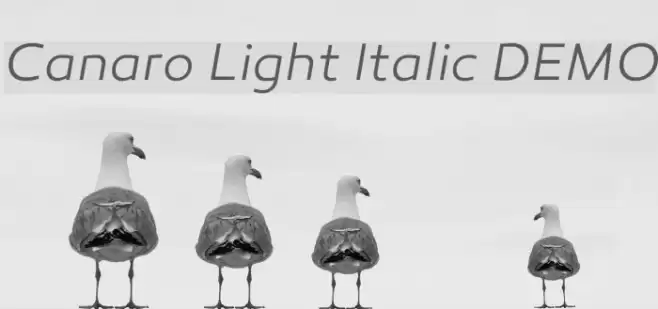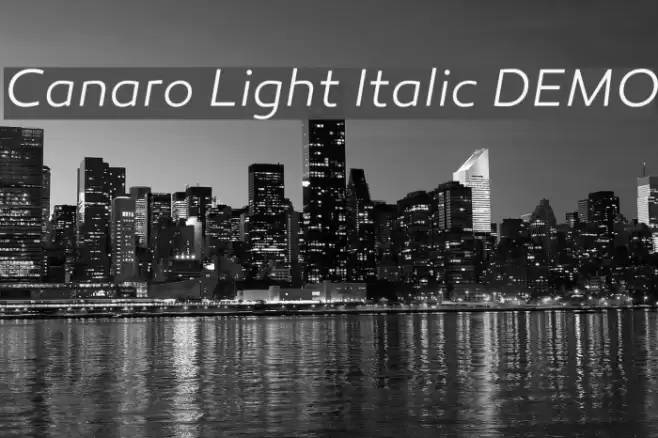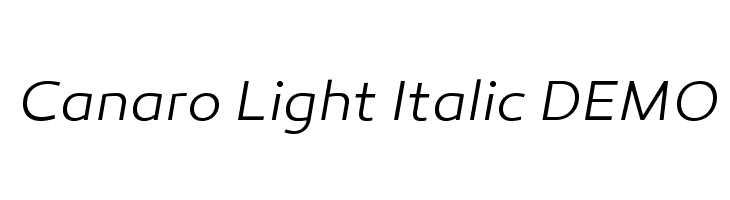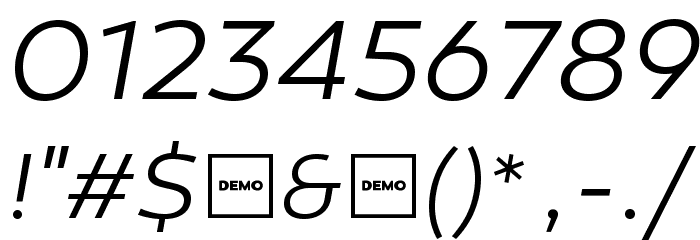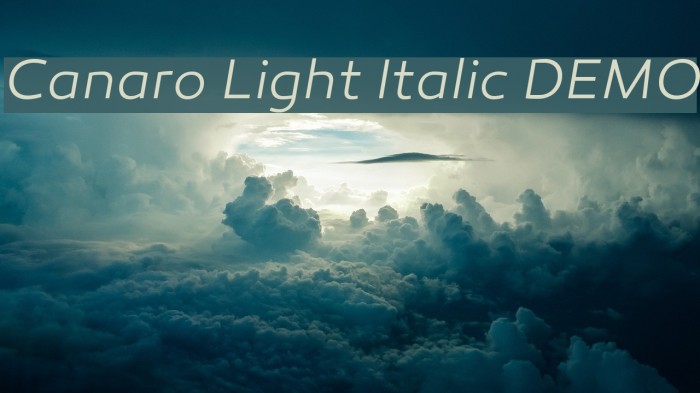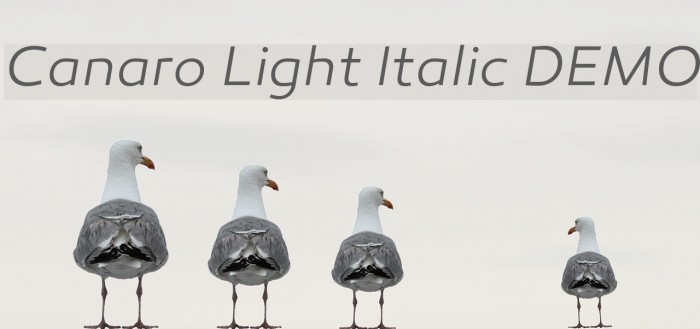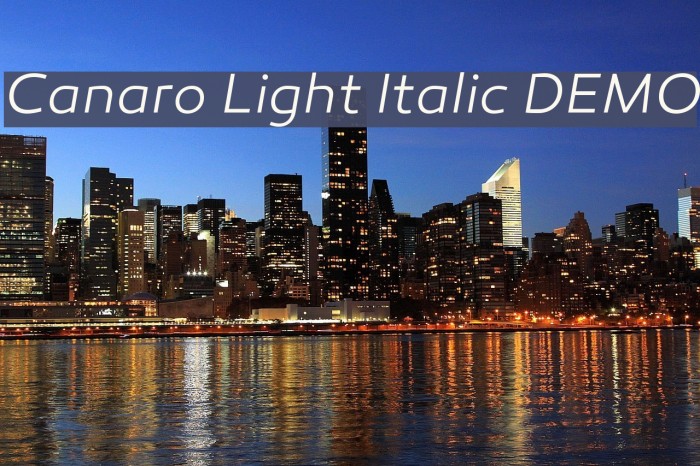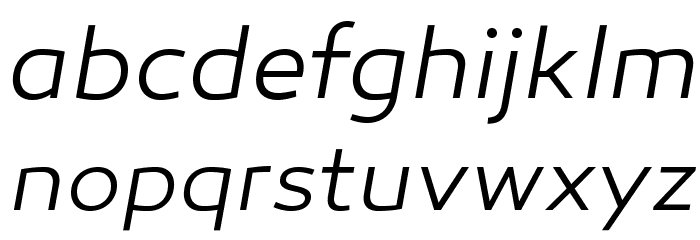
Canaro Light Italic DEMO Font
Canaro Light Italic DEMO Description
This font features a sleek and modern design with a light weight and italic style. The characters are elegantly slanted, providing a sense of motion and fluidity. It maintains a clean and minimalistic appearance, making it suitable for contemporary design projects. The letterforms are well-balanced with a consistent stroke width, offering a harmonious and professional look. The spacing between characters is normal, ensuring readability while maintaining a stylish aesthetic. This font's low contrast in stroke thickness contributes to its refined and understated elegance.
A sleek, modern, light italic font with elegant slanted characters from Uncategorized fonts.